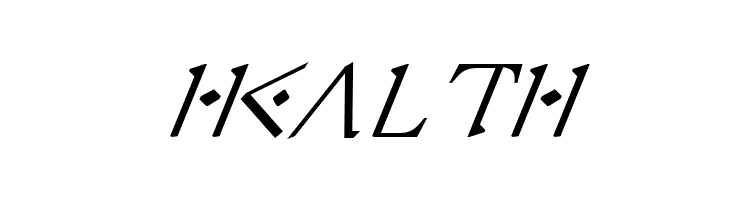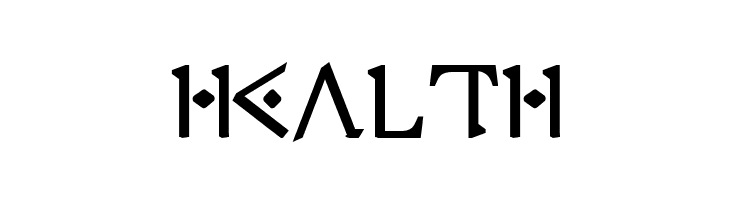
• ButtonButton
• Heart Things
• KR Halloween Signs One
A decorative, Halloween-themed font mimicking warning signs with bold, high-contrast characters.
• Gothic Hijinx Hollow
( Fonts by Omega Font Labs )
A whimsical, hollow font with decorative, gothic-inspired elements.
• Gothic Hijinx
( Fonts by Omega Font Labs )
A whimsical and gothic-inspired font with playful, decorative elements.
• Presley Press Italic
A decorative italic font with geometric and angular elements, offering a futuristic and dynamic style.
• Presley Press
A geometric and angular font with a modern, artistic flair.
• Presley Press Bold
A bold, decorative font with geometric and tribal influences.
• Tetra
( Fonts by www.Fontfabric.com )
A modern, geometric font with decorative accents and bold style.
• wmshapes1